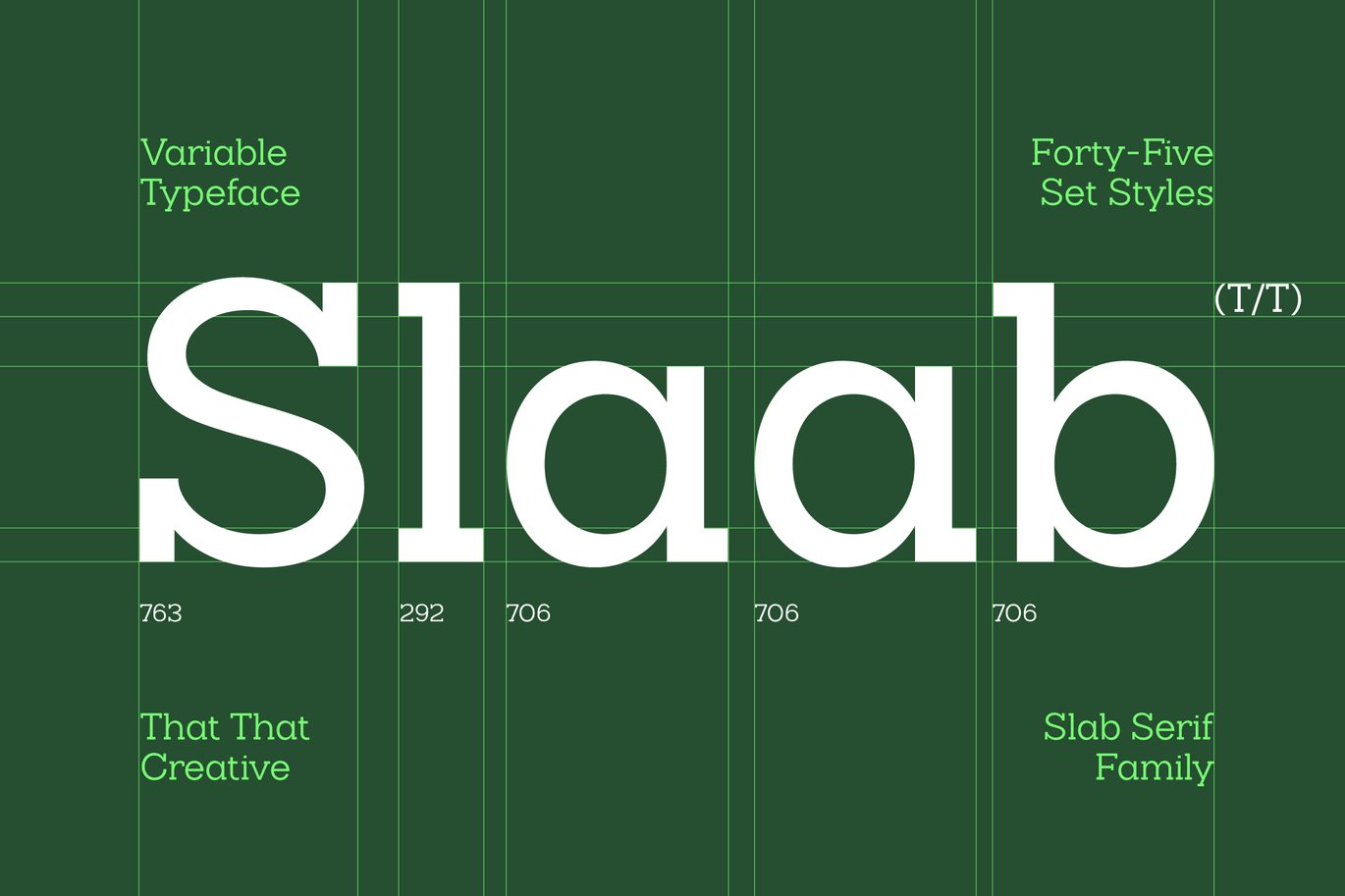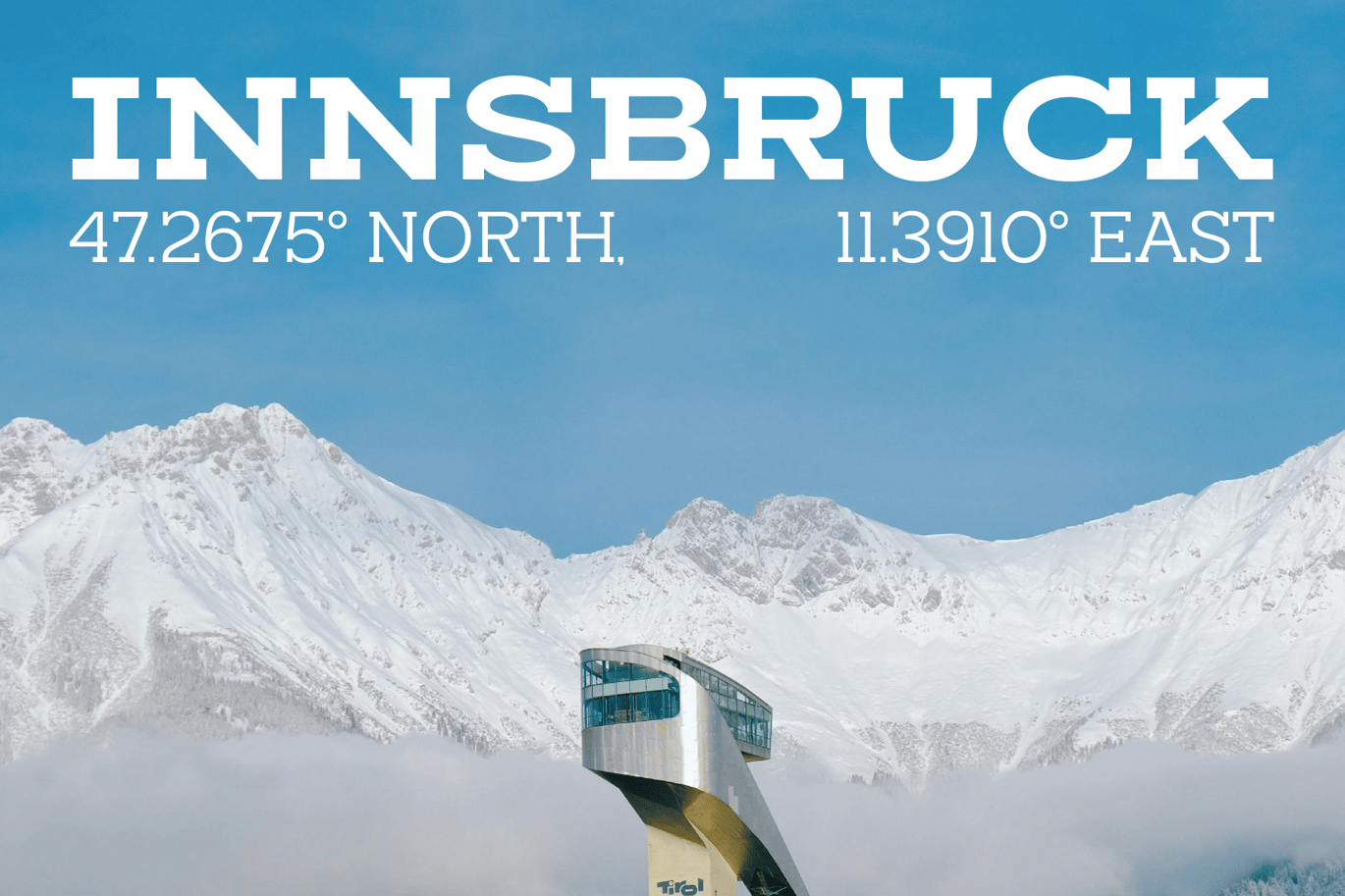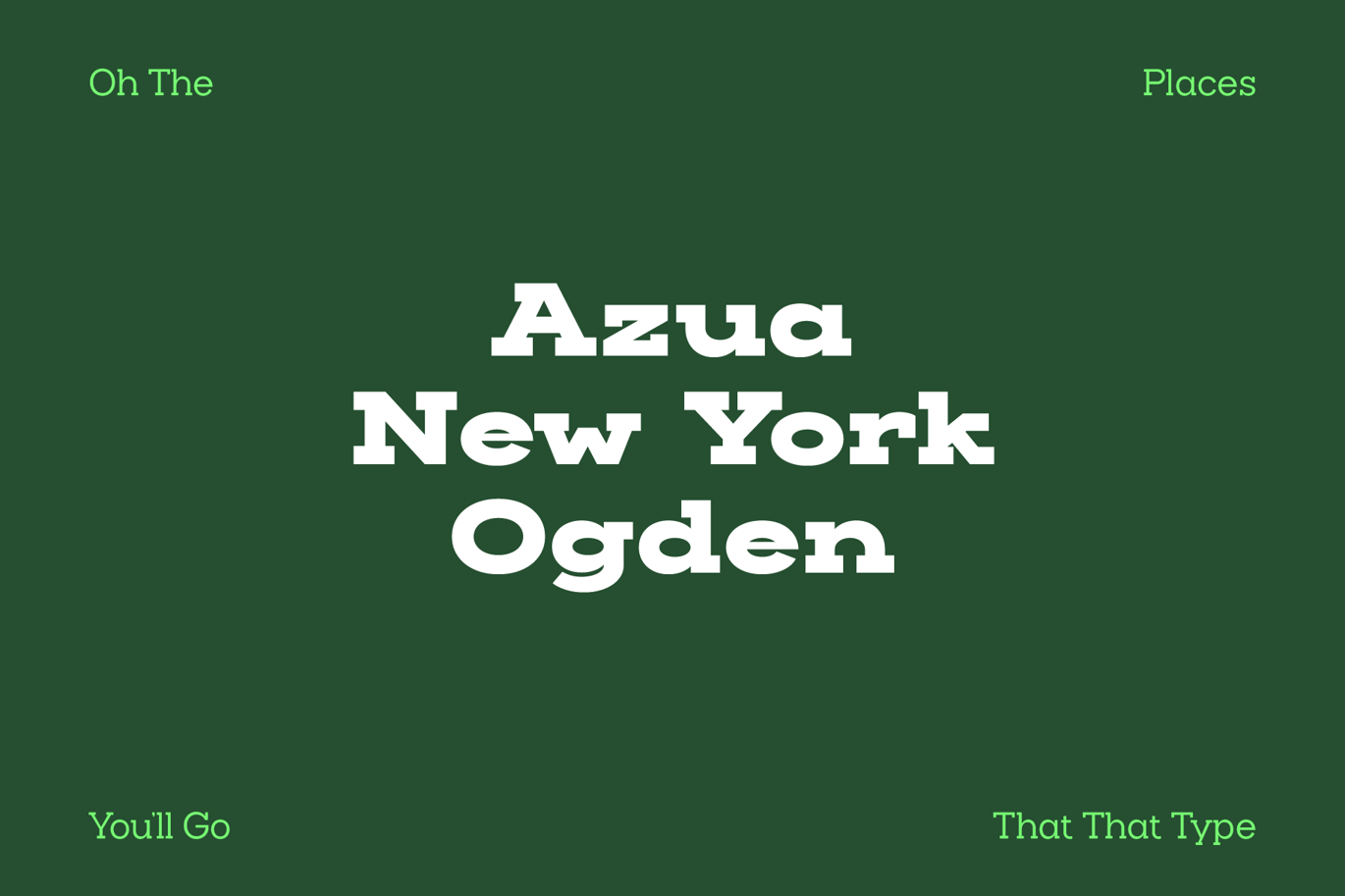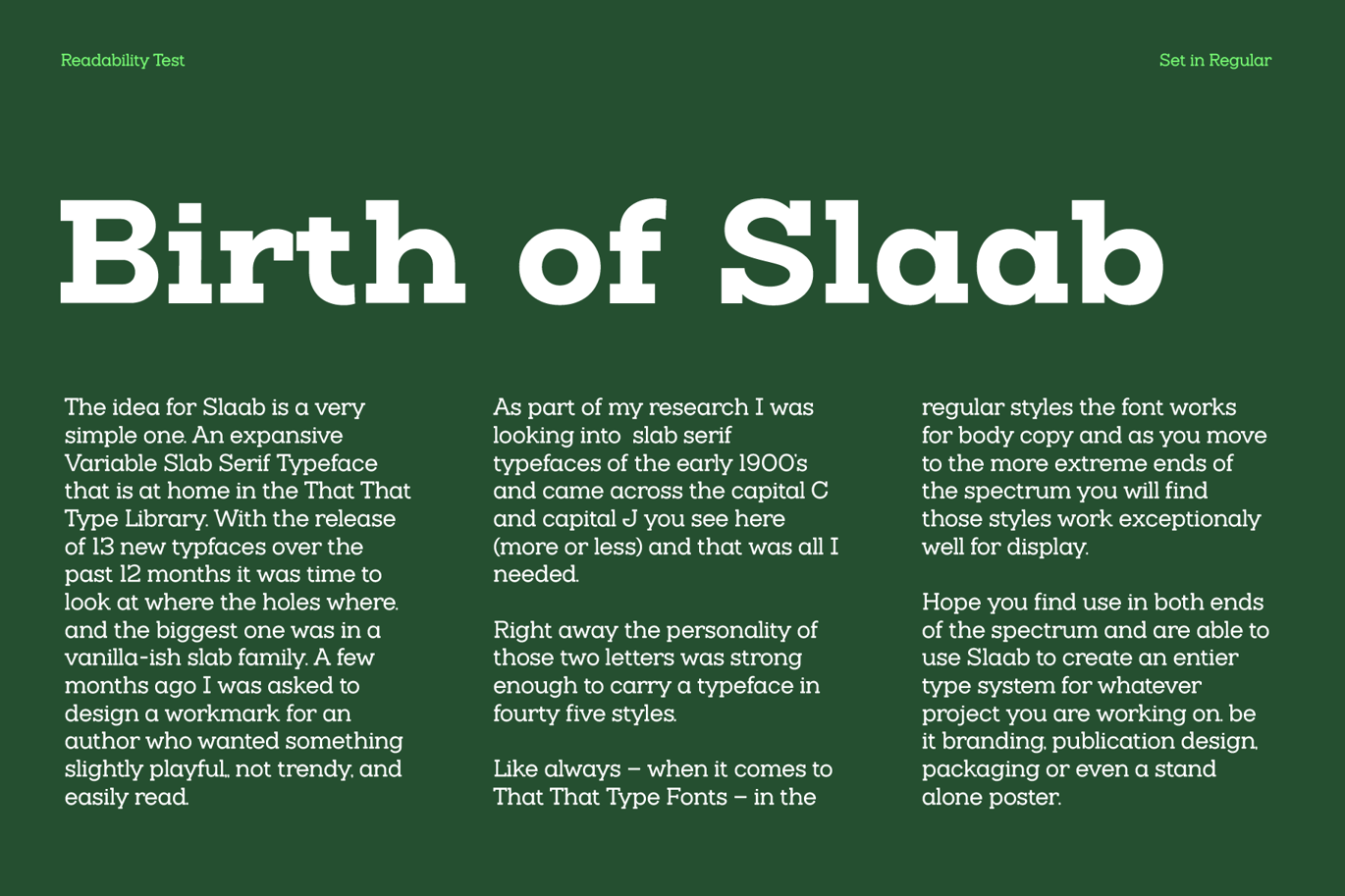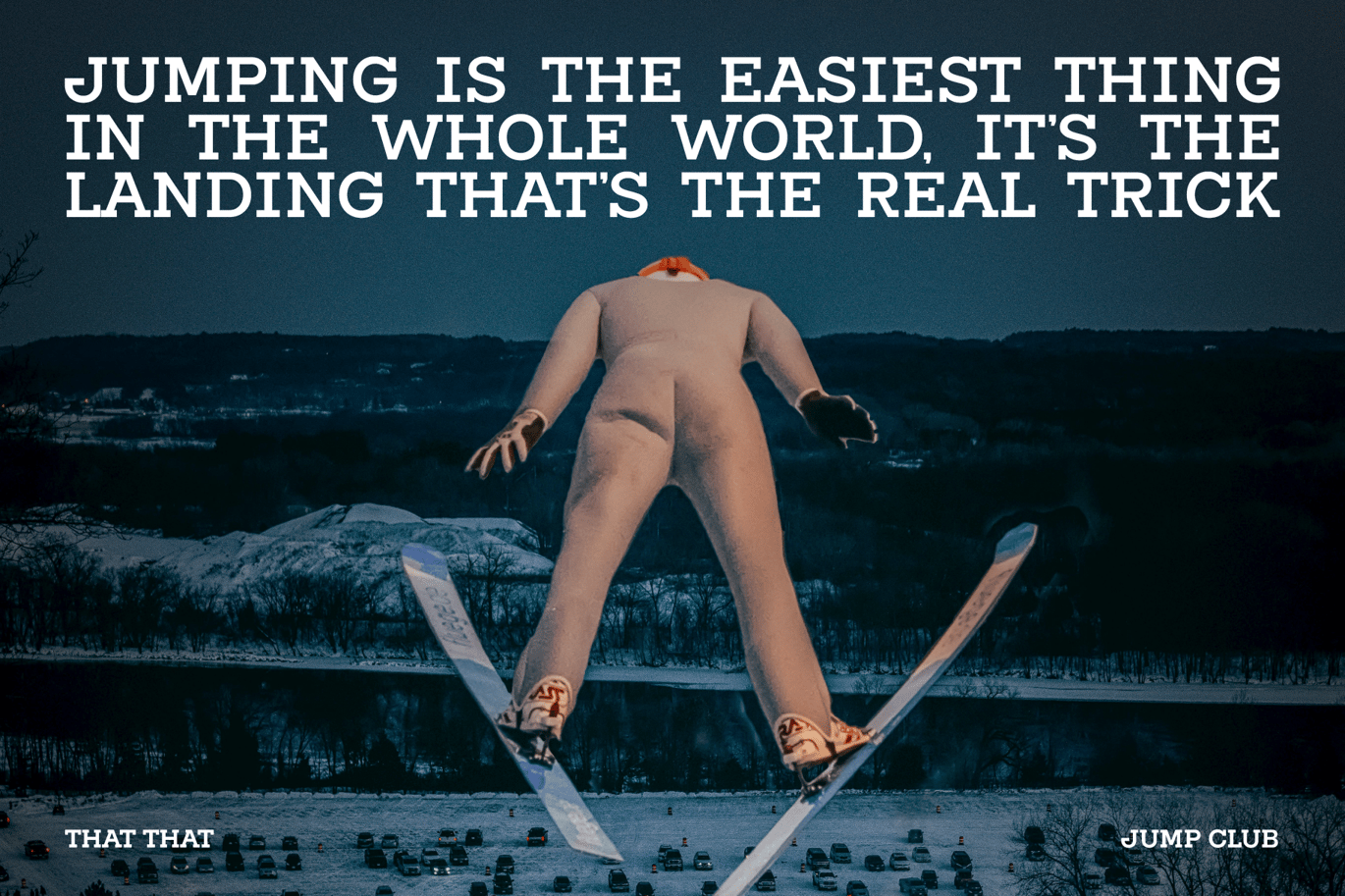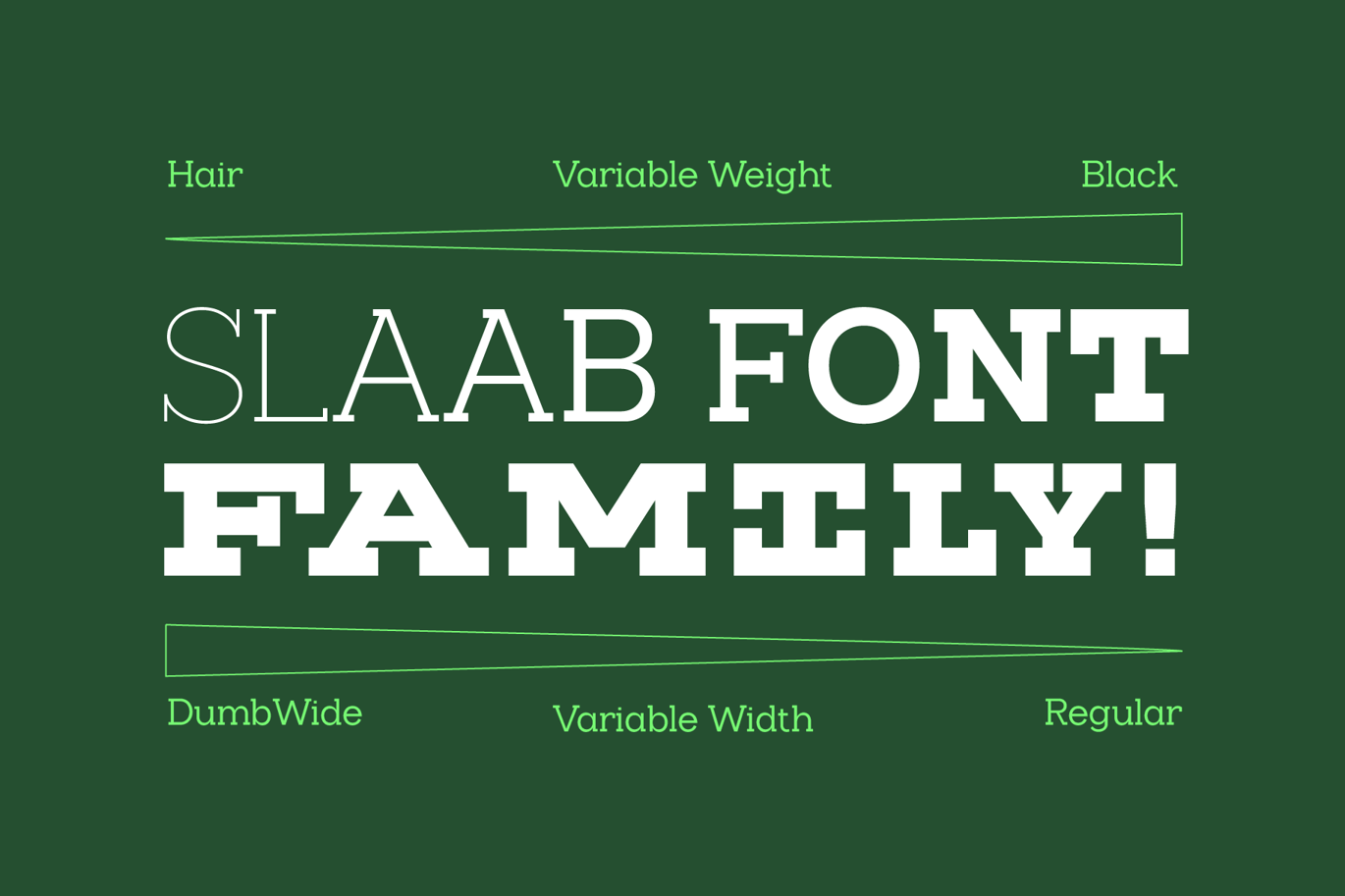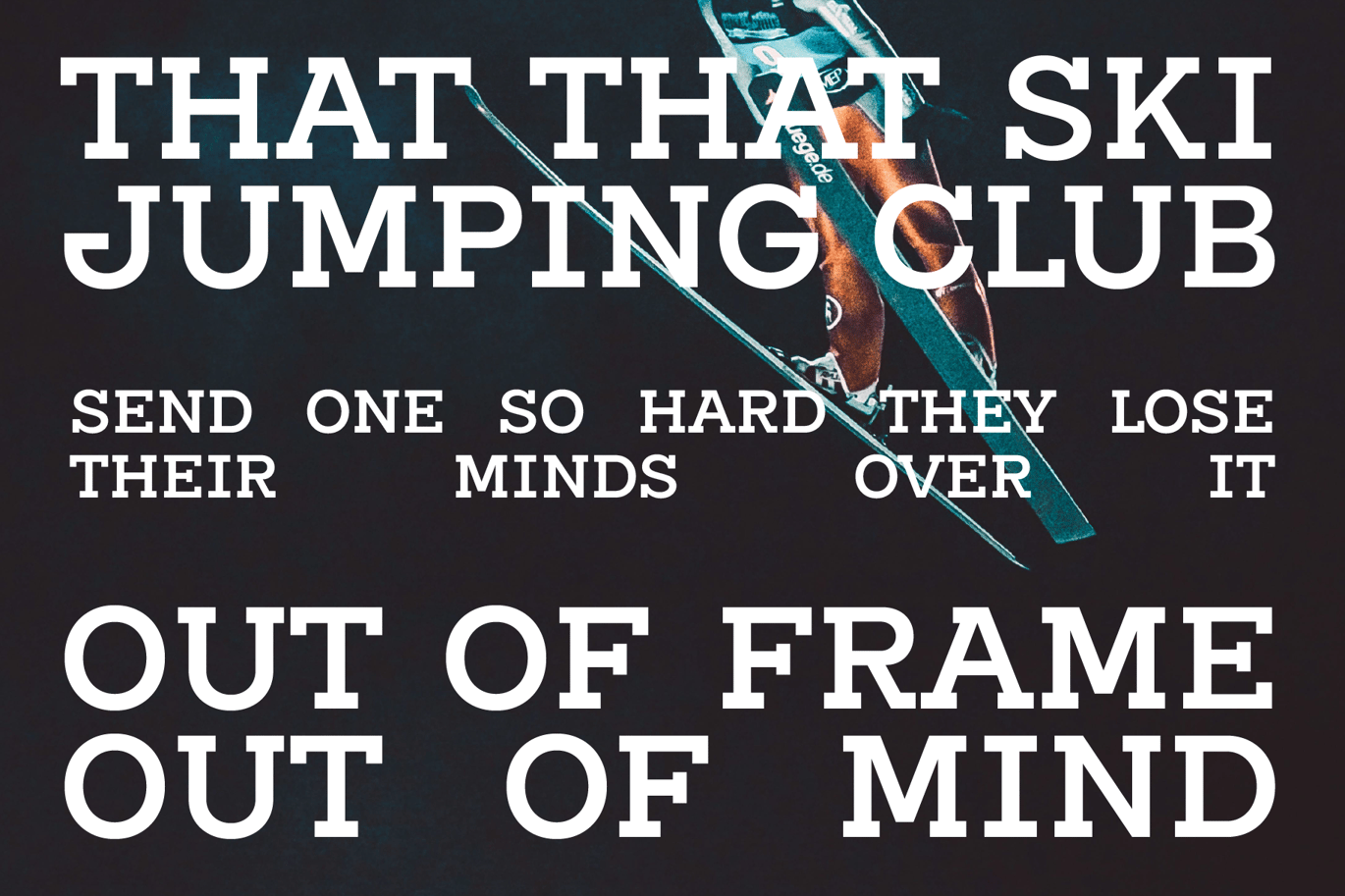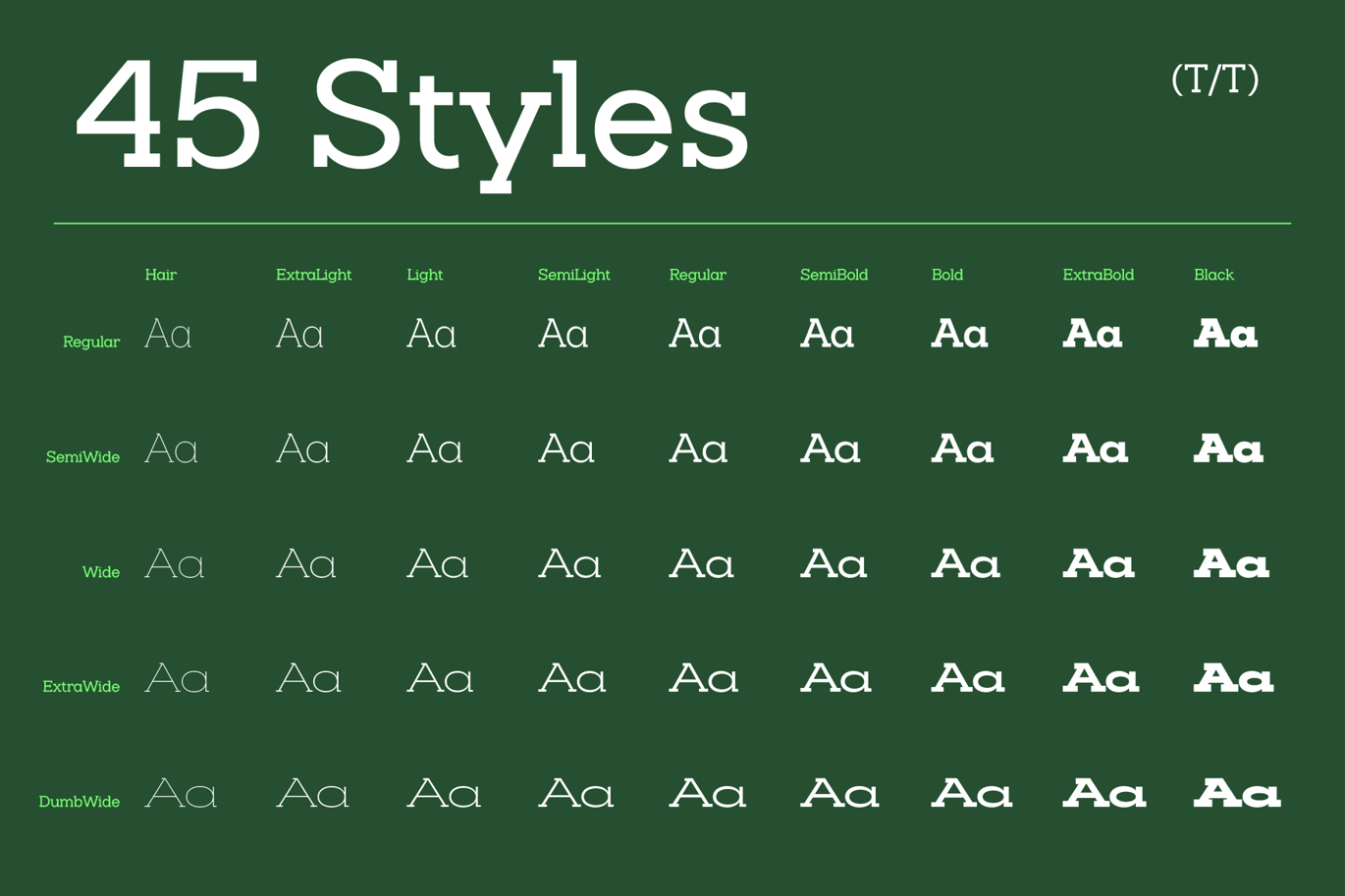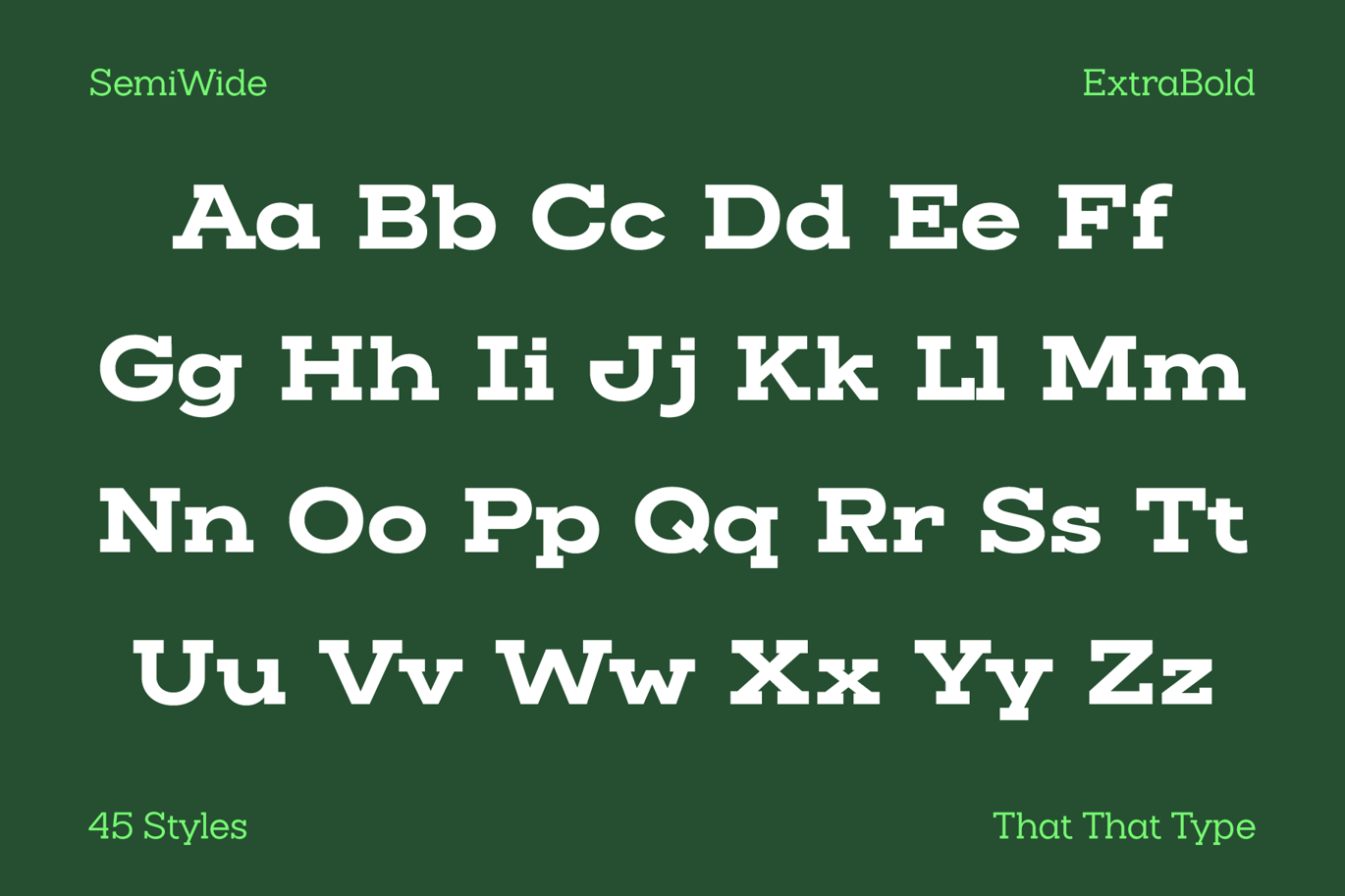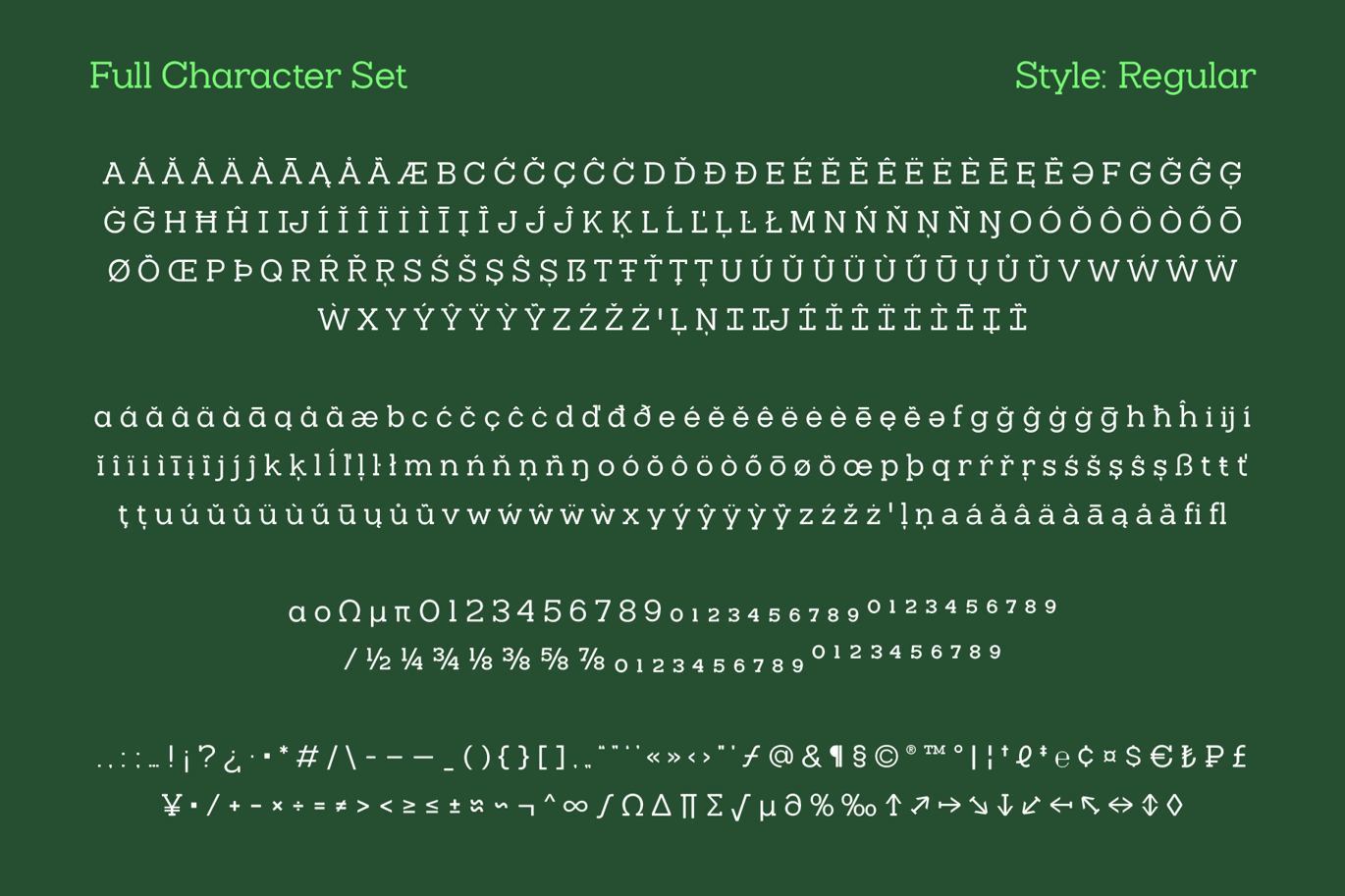
Slab Serif Font Family Slab
The idea for Slaab is a very simple one. An expansive Variable Slab Serif Typeface that is at home in the That That Type Library. With the release of 13 new typfaces over the past 12 months it was time to look at where the holes where. and the biggest one was in a vanilla-ish slab family. A few months ago I was asked to design a workmark for an author who wanted something slightly playful,, not trendy, and easily read.
As part of my research I was looking into slab serif typefaces of the early 1900’s and came across the capital C and capital J you see here (more or less) and that was all I needed.
Right away the personality of those two letters was strong enough to carry a typeface in forty five styles.
Like always – when it comes to That That Type Fonts – in the regular styles the font works for body copy and as you move to the more extreme ends of the spectrum you will find those styles work exceptionally well for display.
Hope you find use in both ends of the spectrum and are able to use Slaab to create a full type system for whatever project you are working on. be it branding, publication design, packaging or even a stand alone poster.
- 45 set styles
- Variable Width and Weight
- Latin 3 language support (over 120 languages)
- Alternative a and I styles (ss01, ss02)
- Case sensitive punctuation